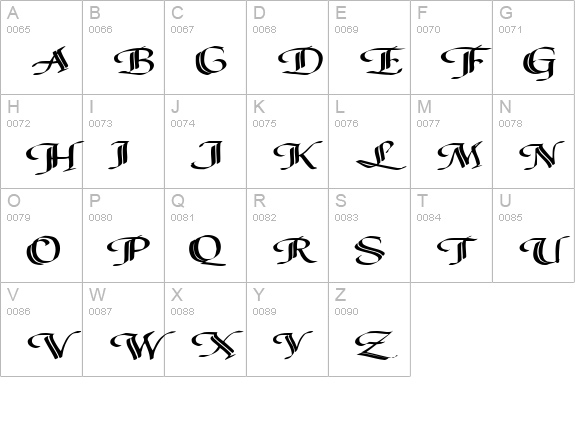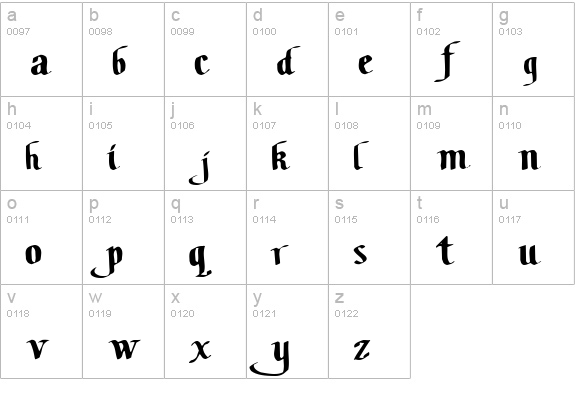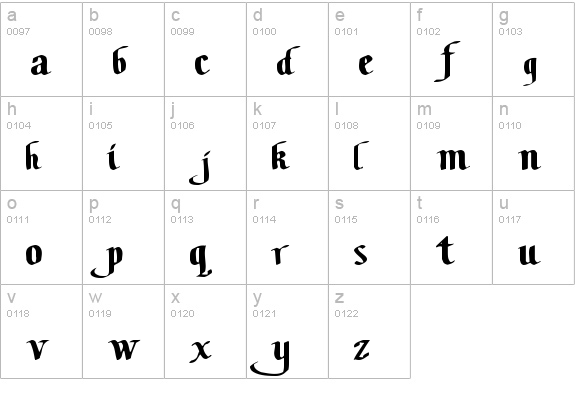
ClassicFont104 Regular Font Details
ClassicFont104 Regular is the standard, neutral variant in the ClassicFont104 typeface family \xE2\x80\x94 well suited to general body text, paragraphs, and standard typographic work.
ClassicFont104 Regular is a timeless and elegant font that exudes sophistication and charm. With its classic and refined design, this font is versatile and can be used for a wide range of projects, from invitations and business cards to posters and logos. The clean lines and balanced proportions of ClassicFont104 Regular make it a perfect choice for conveying a sense of professionalism and style. Best of all, ClassicFont104 Regular is available for free download at FontsMarket.com. Now you can enhance your projects with this beautiful font without having to worry about any additional costs. Don't miss out on the opportunity to add ClassicFont104 Regular to your font collection and elevate your designs to the next level.